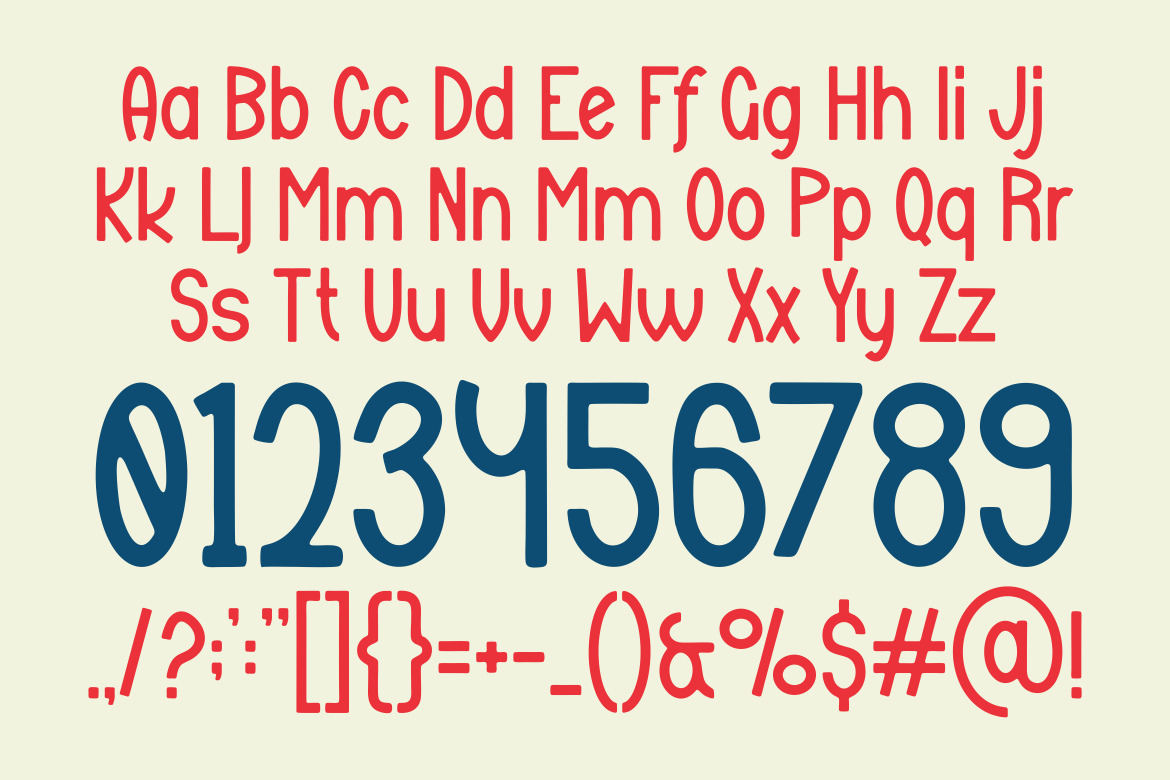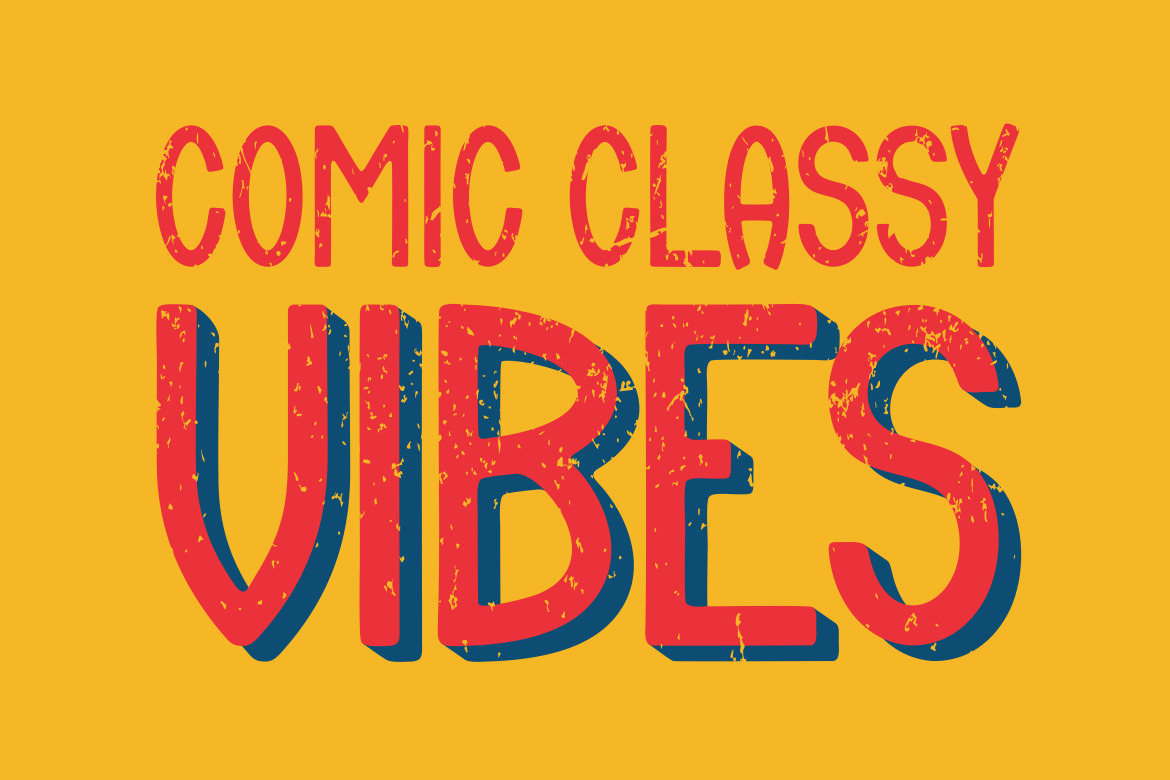
Andak - Modern Playful Font
Introducing our new product **Andak** - Modern Playful Font
**Andak** suitable for greeting cards, invitations, posters, baby clothing, books cover, quotes, logos, presentations, headline, etc.outstanding in a wide range of contexts.